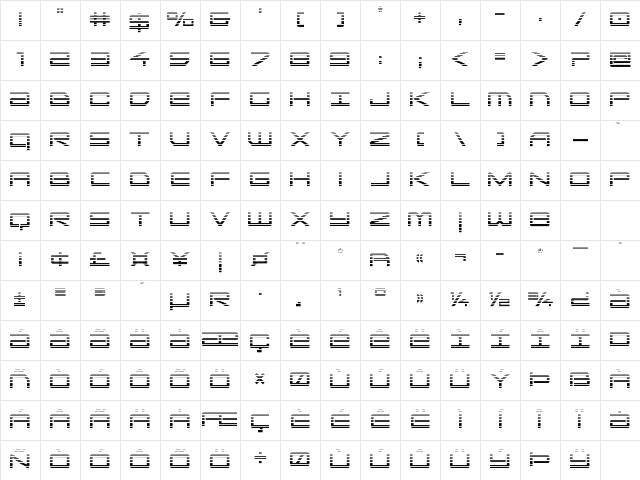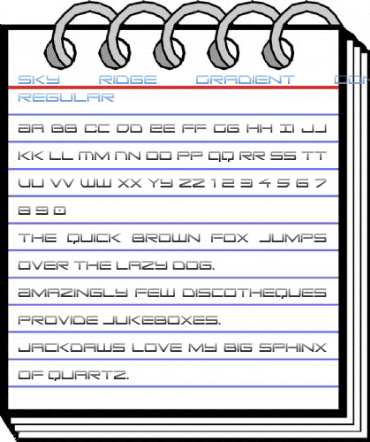
Sky Ridge Gradient Condensed is a composed and adaptable typeface that performs quietly and consistently across a wide range of design contexts. Its narrow stance lets it pack a punch even in space-constrained designs.